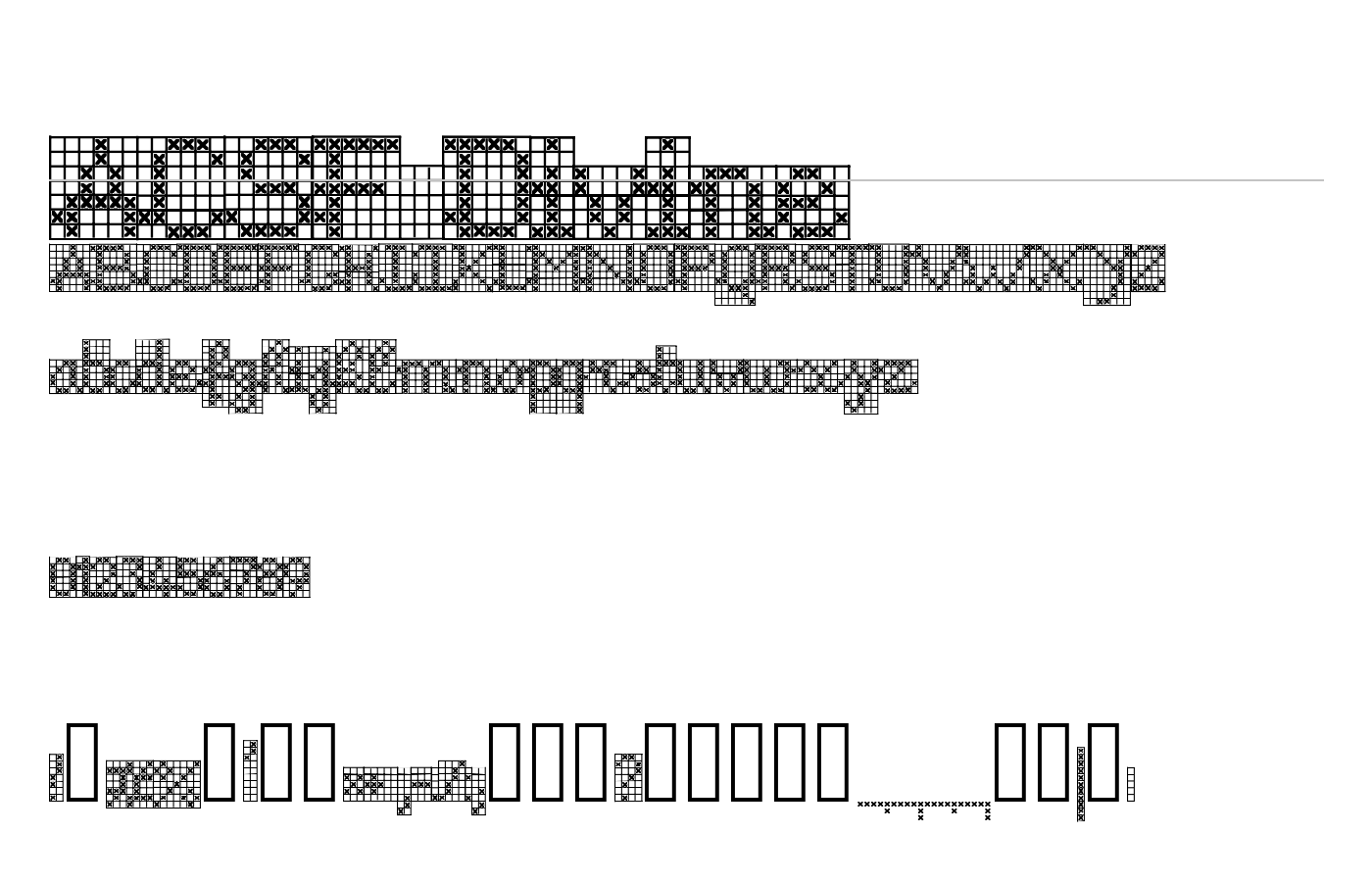
ACSF Divine is a distinctive pixel-style font characterized by its blocky, grid-based letterforms that evoke a retro digital or video game aesthetic. Its monospaced, geometric shapes and consistent stroke weight make it ideal for creating a nostalgic, tech-inspired look. This font works exceptionally well for digital art, gaming interfaces, futuristic branding, and any design aiming for a bold, playful, and vintage electronic vibe.
ACSF Divine Font
About ACSF Divine Font